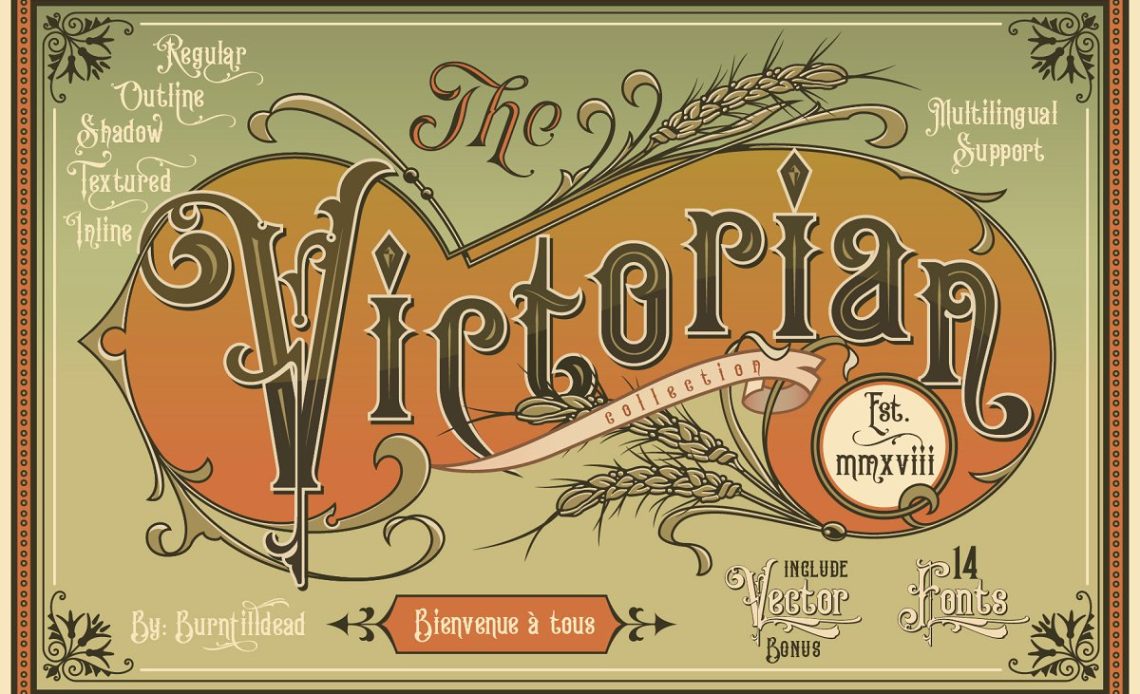
If you're looking for the perfect font to give your designs a touch of classic elegance and vintage vibes, look no further than the Victorian Fonts Collection by Eric Kurniawan. This exquisite font family features a beautiful serif design that will transport your designs back to the 1800s, with all the ornamental and decorative details that defined the era.
With a total of 1814 glyphs and 200 alternate characters, the King Edward and Queen Victoria fonts offer plenty of creative options to give your designs a unique and personalized touch. And the best part? This font family is multilingual and comes with a personal and commercial license, giving you complete freedom to use it in any project.
Accessing the alternate characters is a breeze, thanks to the included Glyph panel tutorial. And if you're looking for even more Victorian graphics and ornaments, the font family comes with a complete set of Victorian borders, badges, and dingbats, all in OTF format and ready to use in EPS 10, AI 10, and PDF formats.
The OpenType features of the Victorian Fonts Collection are equally impressive, with automatic letter swaps and contextual alternates that make designing with this font family a breeze. And with the included King Edward and Queen Victoria fonts, you'll have a complete range of styles to choose from, including basic, inline, italic, shadow, swash, and vintage.
So whether you're looking to create a stunning vintage logo, a classic website design, or a timeless document layout, the Victorian Fonts Collection has everything you need to bring your ideas to life. Don't settle for mediocre fonts – elevate your designs with the beauty and elegance of Victorian typography.